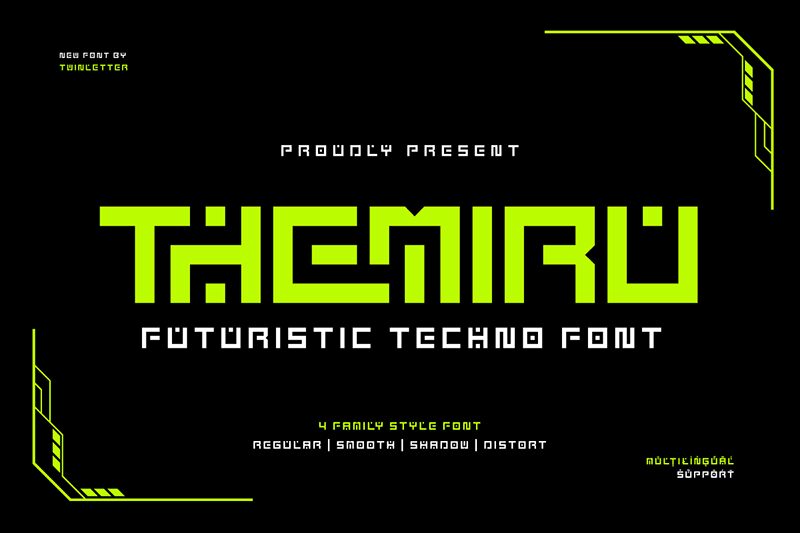
THEMIRU Trial Regular
Themiru font, designed by Twinletter, is a futuristic display typeface with an expanded width and modern aesthetic. Its square geometric shapes and uniform thickness create a bold impact, perfect for projects requiring a forward-thinking vibe.